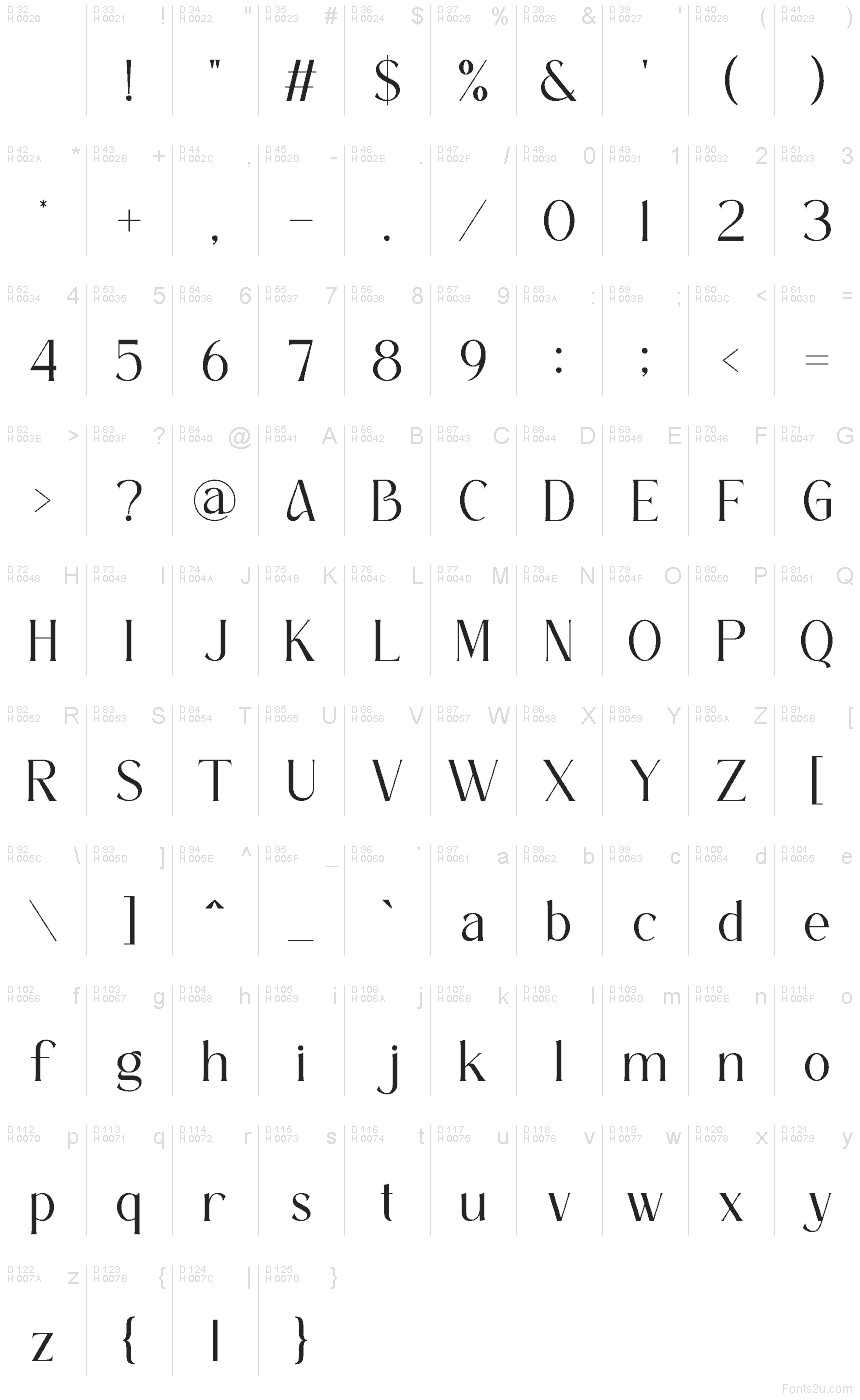
Cheffiy
Cheffiy font by Ermedia Studio is a free vintage serif display font that leans into sumptuous contrast: crisp hairlines meet inky, weighty stems, and the curves feel polished like cut glass. Its defining charm is the poised rhythm—elegant, slightly dramatic, and just restrained enough to read as modern heritage. Those sharp, tapering serifs add a refined snap that turns simple words into headlines with presence.
Using Cheffiy, you get an upscale voice that shines on boutique branding, restaurant menus, wine labels, editorial covers, wedding stationery, beauty packaging, and social media quotes. This free font loves generous tracking at large sizes, where its fine details breathe. Pair it with a clean geometric sans for body copy to keep the spotlight on Cheffiy’s sculpted flair.